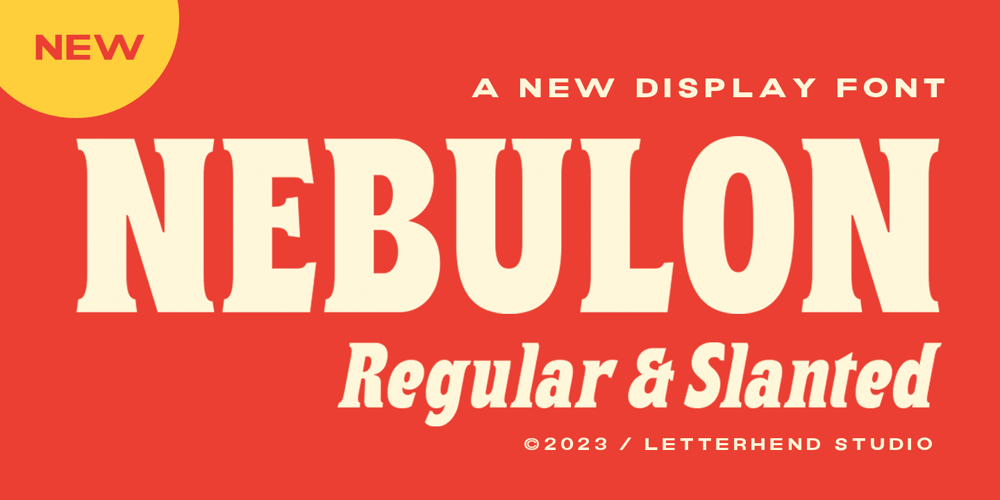
Nebulon Font Family was designed by Hendry Juanda and published by Letterhend. Nebulon contains 2 styles and family package options. Nebulon is a newdisplay font with classic letterform. You can playaround to fit the form using alternate & ligatures. This font perfectly made to be applied especially in logo, and the other various formal forms such as invitations, labels, logos, or any type of advertising purpose.Features : Uppercase & lowercase Numbers and punctuation Alternates & Ligatures Multilingual PUA encoded